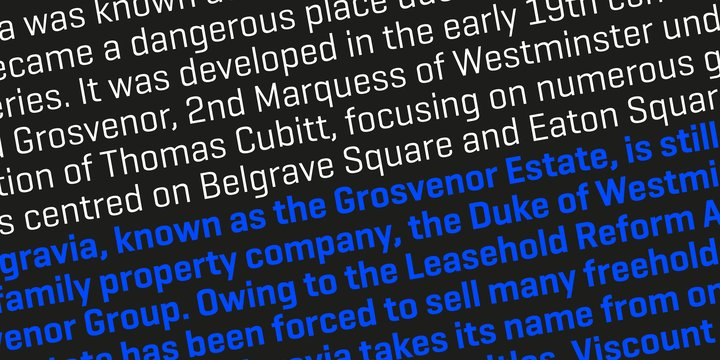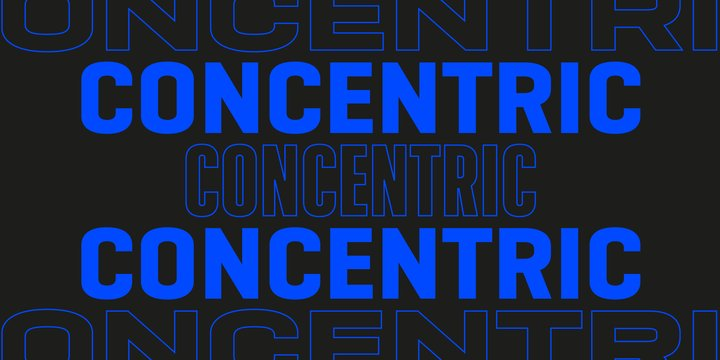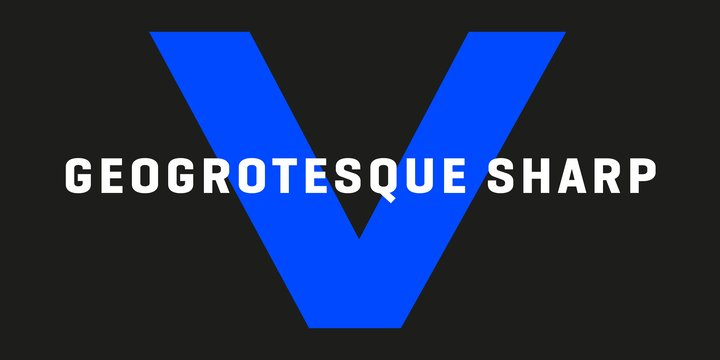
Geogrotesque Sharp Font
Geogrotesque Sharp FontGeogrotesque Sharp is a superfamily of seven widths and 99 styles, that puts together the work of a decade. Some design aspects has been simplified but without losing its soul, we have removed ink traps and rounded corners. This update lead Geogrotesque to another dimension, becoming more usable and less idiosyncratic. A Variable Font version is included with the family, or as a separate style. Despite being more web oriented, this new format has gained popularity in recent years, so we thought it was the right moment to launch a variable Geogrotesque. For more info visit emtype website.